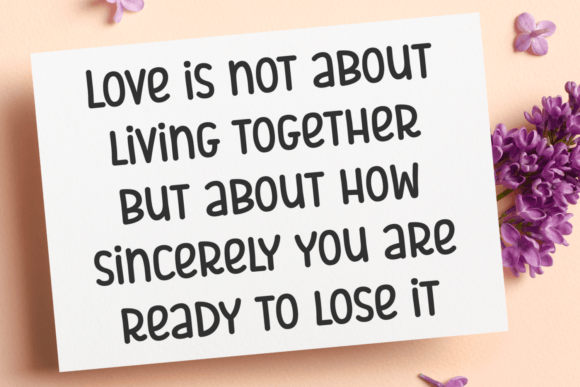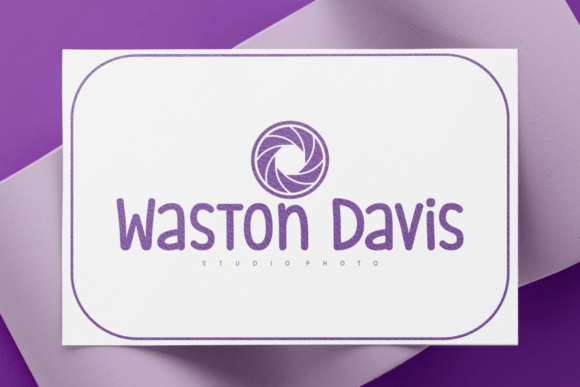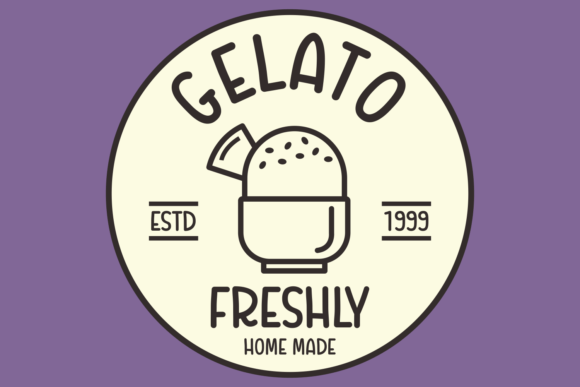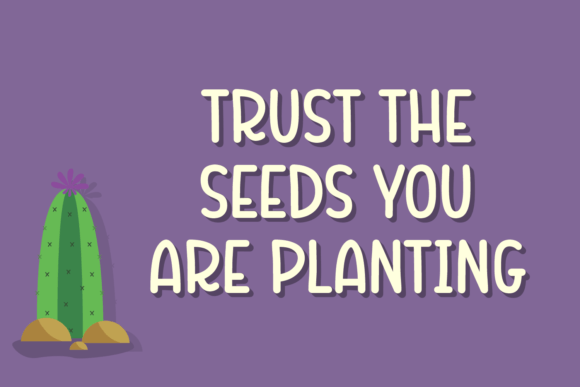
Introduction to Just for a While Font
Just for a While is a fun and modern sans serif font.
With bold and chic characters, this typeface is suitable for various design projects – branding, advertising, sublimation projects, fabric prints, and many more .
Key Features of Just for a While Font